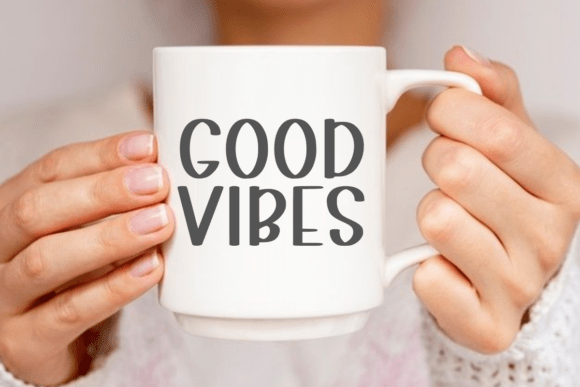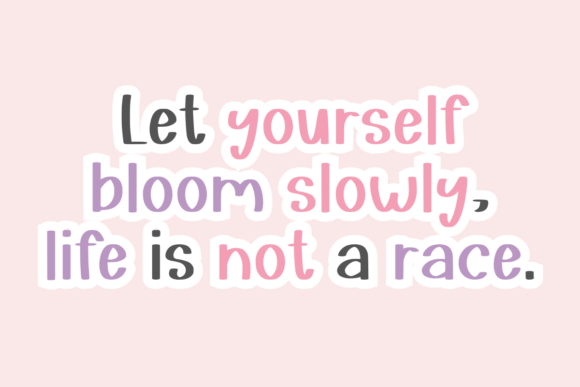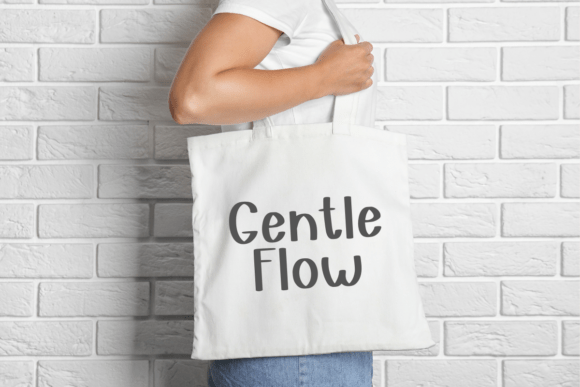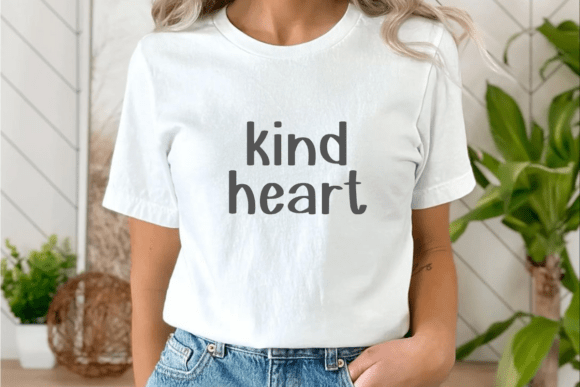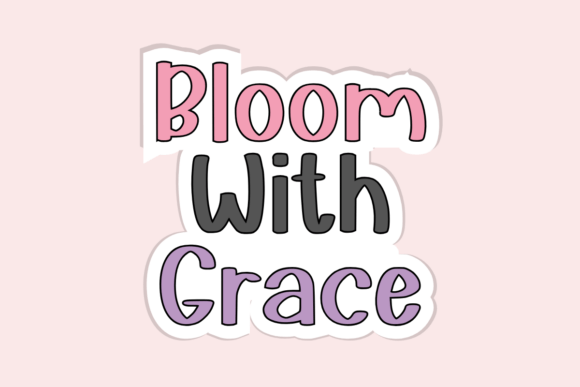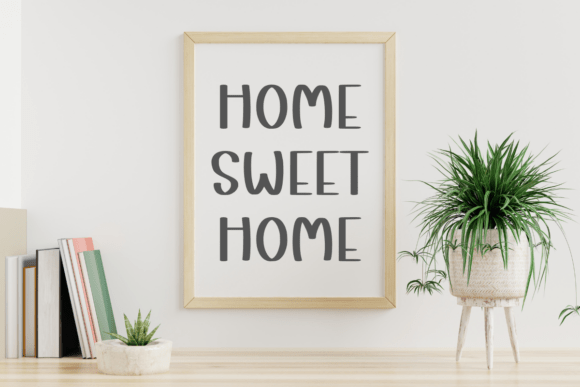
Cupid Letter Font: The Perfect Handwriting Font for Crafty Projects
Are you a crafter, designer, or DIY enthusiast looking for a font that can add a touch of warmth and personality to your projects? Look no further than the Cupid Letter Font! This adorable sans serif handwriting font is designed to bring a soft, friendly, and natural look to your craft projects, making it perfect for a wide range of applications.
What is Cupid Letter Font?
Cupid Letter Font is a carefully crafted font that is designed to mimic the look of handwritten text. Its simple strokes and smooth curves make it easy to read and use in a variety of projects, from craft projects and planners to stickers, kids’ worksheets, and classroom printables. The font’s soft and friendly appearance makes it perfect for designers and crafters who want to add a personal touch to their work.
Features of Cupid Letter Font
So, what makes Cupid Letter Font so special? Here are just a few of its key features:
- Soft and friendly appearance: The font’s gentle curves and simple strokes give it a warm and inviting appearance that is perfect for a wide range of projects.
- Easy to cut: The font’s clean lines and simple design make it easy to cut using popular cutting machines like Cricut and Silhouette.
- Handcrafted feel: The font’s unique design gives it a handcrafted feel that is perfect for crafty projects and DIY designs.
- Versatile: The font is perfect for a wide range of projects, from quotes and greeting cards to kids’ labels, coloring pages, and more.
Uses for Cupid Letter Font
Cupid Letter Font is a versatile font that can be used in a wide range of projects, including:
- Quotes: Use the font to add a personal touch to your favorite quotes and sayings.
- Greeting cards: The font is perfect for creating custom greeting cards for special occasions like birthdays, holidays, and more.
- Kids’ labels: Use the font to create fun and colorful labels for kids’ projects and activities.
- Coloring pages: The font is perfect for creating custom coloring pages for kids.
- Worksheets: Use the font to create engaging and interactive worksheets for kids.
- Bullet journals: The font is perfect for adding a personal touch to bullet journals and other planners.
- Scrapbooks: Use the font to add a personal touch to scrapbooks and other memory books.
- Playful graphic projects: The font is perfect for creating fun and playful graphic projects, like posters, flyers, and more.
Why Choose Cupid Letter Font?
So, why should you choose Cupid Letter Font for your next project? Here are just a few reasons:
- Unique design: The font’s unique design sets it apart from other fonts, making it perfect for designers and crafters who want to add a personal touch to their work.
- Versatile: The font can be used in a wide range of projects, making it a great addition to any designer’s or crafter’s toolkit.
- Adorable: The font’s soft and friendly appearance makes it perfect for projects that require a touch of whimsy and charm.